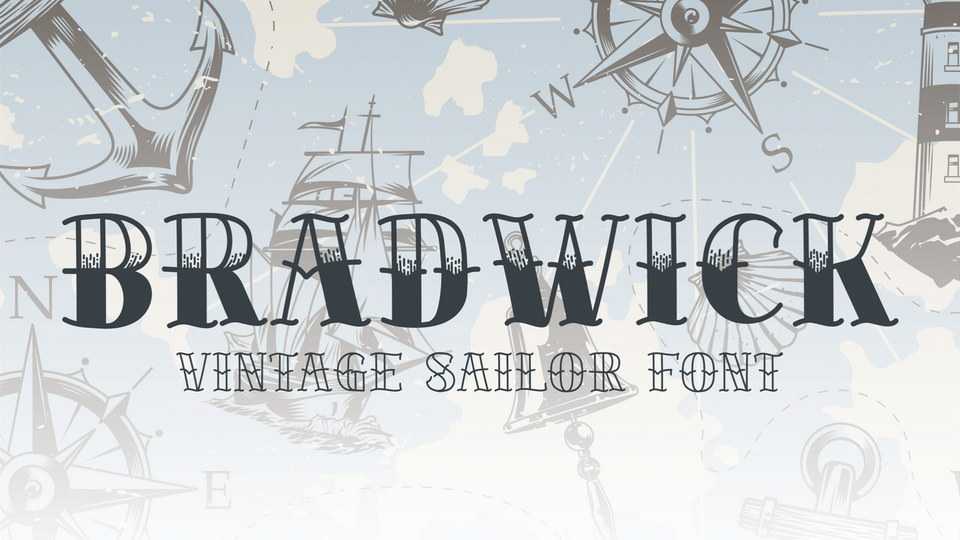
Download Bradwick font, a sailor tattoo font. With vintage-looking and what tattoo artists use to make a classic retro looking inking, Bradwick is top-notch for making one.